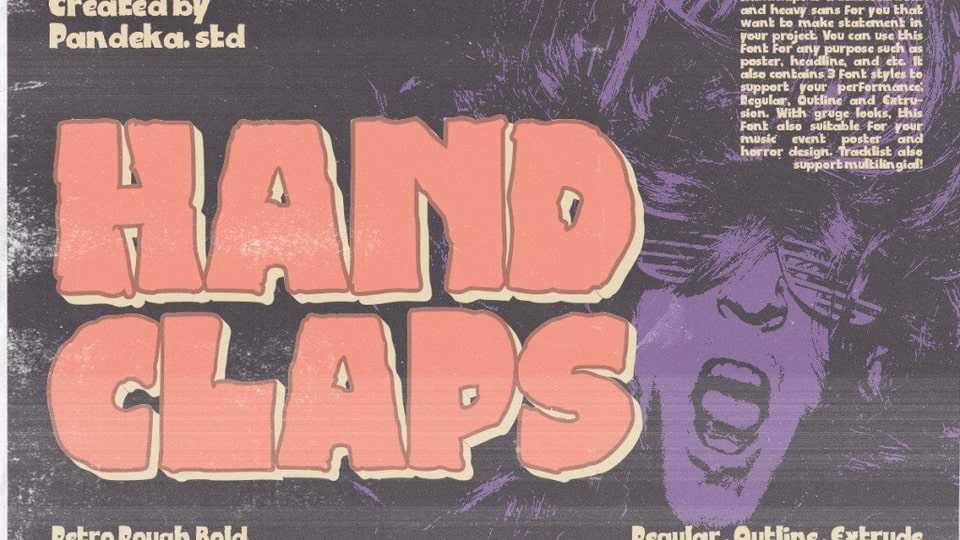
Download Handclaps font, a textured bold and heavy typeface for you that want to make statement in your project. You can use this font for any purpose such as poster, headline, and etc.